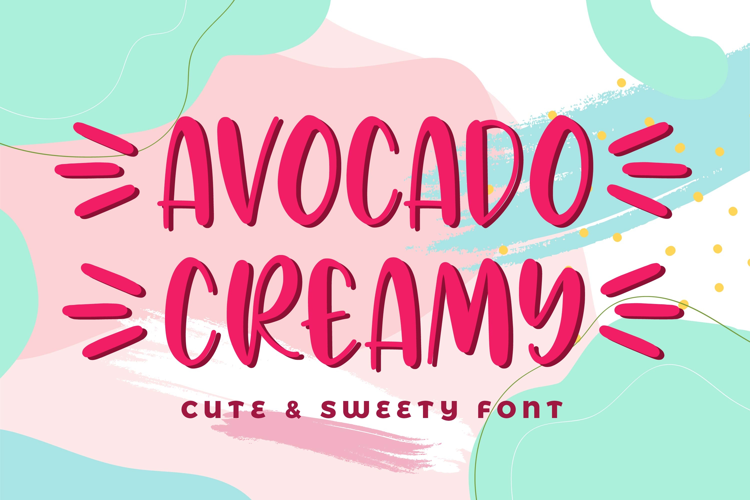
Avocado Creamy - Cute & Sweety Font
Avocado Creamy is sweet and playful, but also Crafty. This versatile script font has a wide range of applications ranging from greeting cards to kids’ crafts, and is guaranteed to add a sweet touch to your next design.